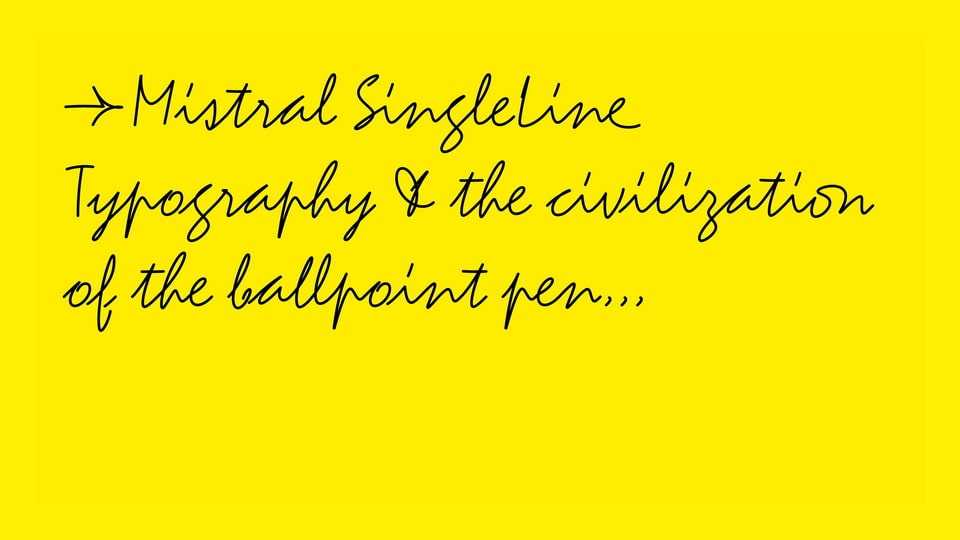
Download Mistral SingleLine font, Roger Excoffon’s iconic script in a monolinear version, distributed as both an open-paths skeletal font oriented towards CNC practices and a classic outline font for print or web usages.